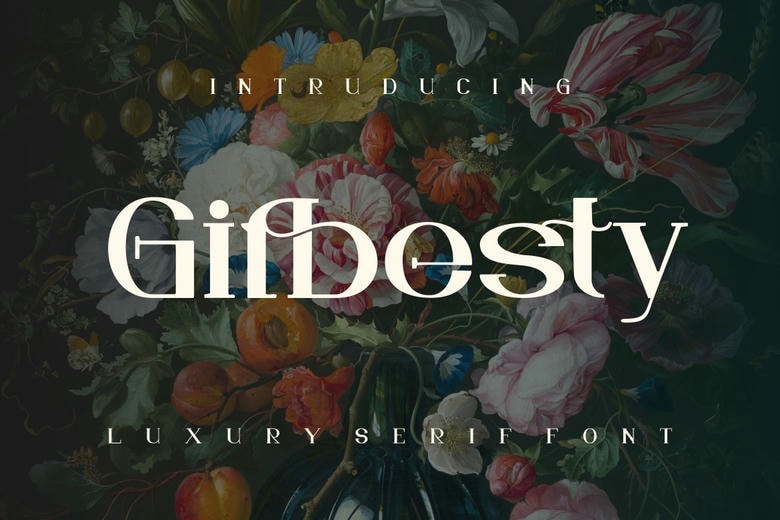
Gifbesty Font
Gifbesty is a luxury serif font with elegant shapes and stylish curves. Its sophisticated design works well for fashion branding, editorial layouts, product packaging, and upscale invitations. If you’re looking for a bold, refined style with a modern feel, this font is a great choice.
Gifbesty Serif Font